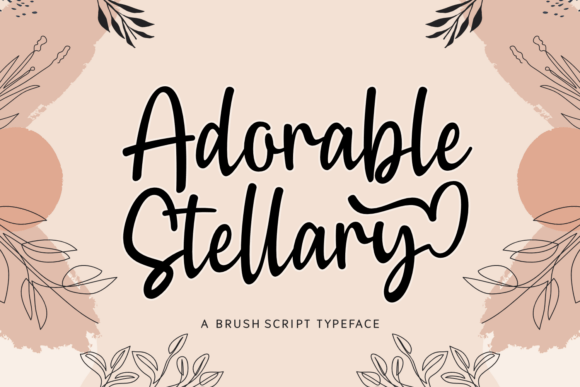
Discover the Charm of Adorable Stellary Font: A Playful and Feminine Typeface
Are you on the hunt for a font that exudes warmth, playfulness, and a touch of femininity? Look no further than the Adorable Stellary font, a delightful typeface that is sure to capture the hearts of designers and crafters alike. This charming font is characterized by its handwritten feel, reminiscent of brush script, and enhanced by heart-shaped swashes that add a whimsical touch.
Aesthetic and Impression
The Adorable Stellary font boasts a unique and captivating aesthetic that evokes a sense of approachability and friendliness. Its warm and playful demeanor makes it an ideal choice for designs that aim to be inviting and personal. Whether you’re creating greeting cards, invitations, or branding materials for feminine-focused businesses, this font is sure to leave a lasting impression.
One of the standout features of the Adorable Stellary font is its versatility. It lends itself to a wide range of creative projects, including:
• Greeting cards and invitations: Add a personal touch to your cards and invites with this charming font.
• Branding for feminine-focused businesses: Create a cohesive and feminine brand identity with Adorable Stellary.
• Social media graphics: Stand out on social media with eye-catching graphics featuring this delightful font.
• Inspirational quotes: Share your favorite quotes in a beautiful and uplifting way.
• Children’s books and educational materials: The cheerful and elegant nature of Adorable Stellary makes it perfect for kids’ content.
Multilingual Support and Authentic Handwritten Look
The Adorable Stellary font also offers multilingual support with accented characters, making it a great choice for designers working on international projects. Additionally, its variable stroke widths give it an authentic handwritten look that is sure to add a personal touch to your designs.
The Heart-Shaped Swashes: A Touch of Whimsy
One of the most distinctive features of the Adorable Stellary font is its heart-shaped swashes. These charming flourishes add a touch of whimsy and playfulness to your designs, making them perfect for projects that require a bit of personality. Whether you’re creating romantic greeting cards or feminine branding materials, the heart-shaped swashes are sure to make your designs stand out.
Tips for Using Adorable Stellary Font
To get the most out of the Adorable Stellary font, here are a few tips to keep in mind:
• Pair it with neutral backgrounds: Let the font be the star of the show by pairing it with neutral backgrounds that won’t compete for attention.
• Experiment with colors: The Adorable Stellary font looks great in a range of colors, from soft pastels to bold brights.
• Use it for headlines and titles: The font’s playful and whimsical nature makes it perfect for headlines and titles that need to grab attention.
In conclusion, the Adorable Stellary font is a delightful typeface that is sure to capture the hearts of designers and crafters alike. Its warm, playful, and feminine aesthetic makes it perfect for a wide range of creative projects, from greeting cards and invitations to branding materials and social media graphics. With its multilingual support, variable stroke widths, and heart-shaped swashes, this font is a must-have for anyone looking to add a touch of personality and whimsy to their designs.